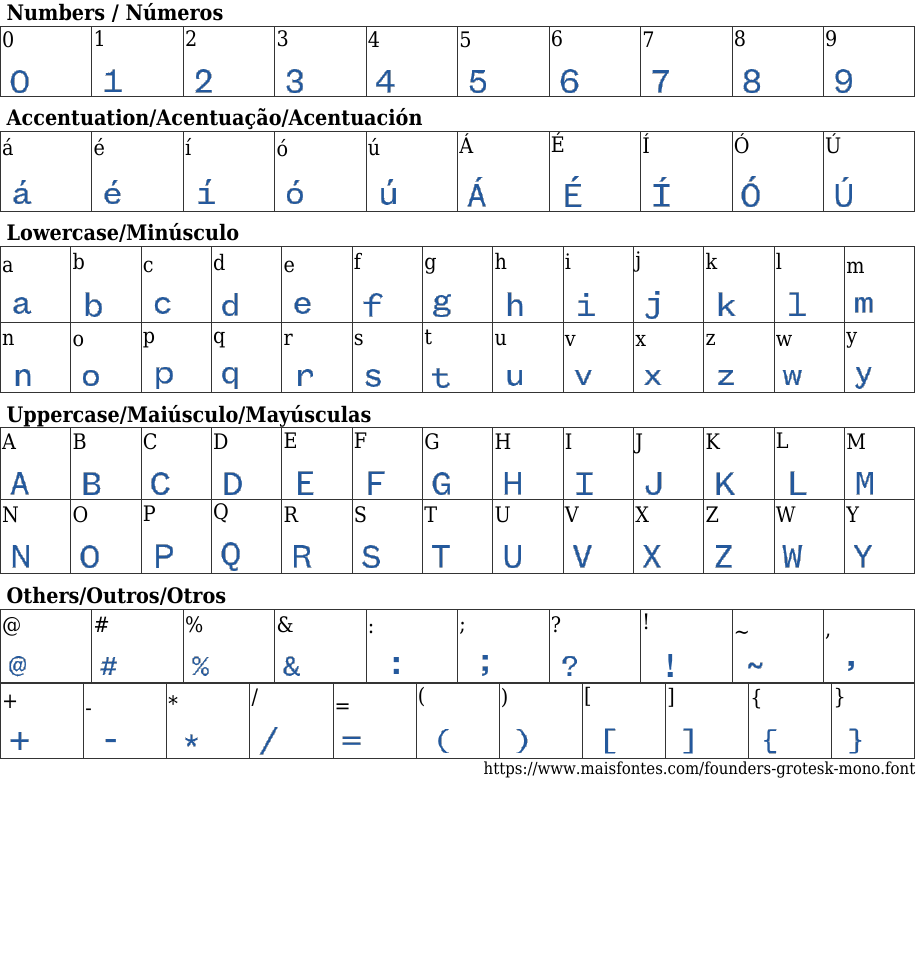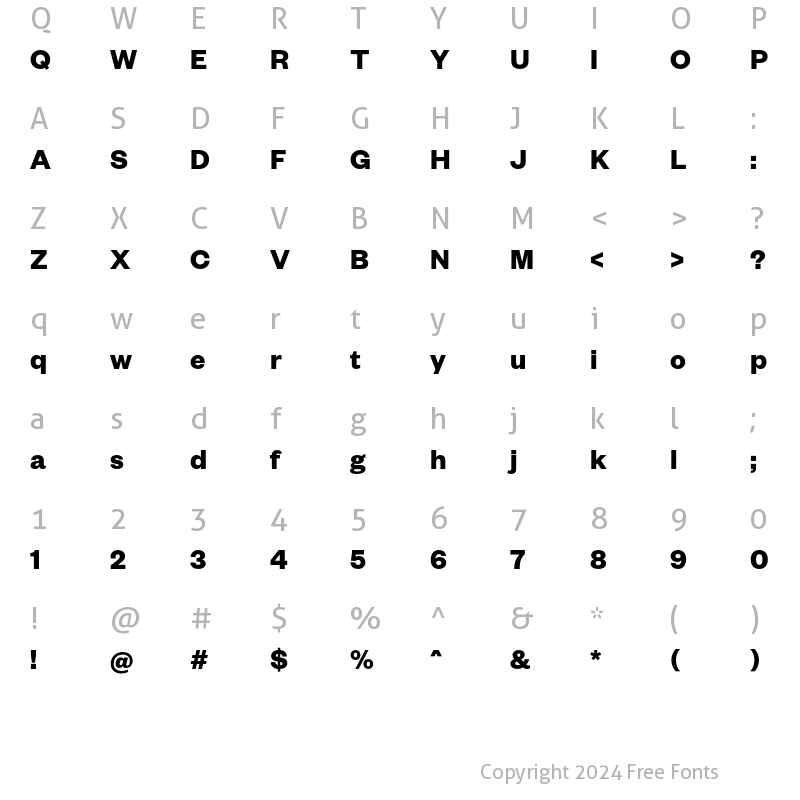
Founders Grotesk Google Font - Founders grotesk sans serif font. Websites using the typeface founders grotesk with personal recommendations for similar web fonts, suggested font pairings and the closest. Designed by kris sowersby of the klim type. Sans serif, basic, display languages supported:
Sans serif, basic, display languages supported: Websites using the typeface founders grotesk with personal recommendations for similar web fonts, suggested font pairings and the closest. Designed by kris sowersby of the klim type. Founders grotesk sans serif font.
Websites using the typeface founders grotesk with personal recommendations for similar web fonts, suggested font pairings and the closest. Sans serif, basic, display languages supported: Founders grotesk sans serif font. Designed by kris sowersby of the klim type.
Websites using the typeface founders grotesk with personal recommendations for similar web fonts, suggested font pairings and the closest. Designed by kris sowersby of the klim type. Founders grotesk sans serif font. Sans serif, basic, display languages supported:
Founders grotesk sans serif font. Sans serif, basic, display languages supported: Websites using the typeface founders grotesk with personal recommendations for similar web fonts, suggested font pairings and the closest. Designed by kris sowersby of the klim type.
Founders grotesk sans serif font. Designed by kris sowersby of the klim type. Websites using the typeface founders grotesk with personal recommendations for similar web fonts, suggested font pairings and the closest. Sans serif, basic, display languages supported:
Founders grotesk sans serif font. Sans serif, basic, display languages supported: Websites using the typeface founders grotesk with personal recommendations for similar web fonts, suggested font pairings and the closest. Designed by kris sowersby of the klim type.
Founders grotesk sans serif font. Sans serif, basic, display languages supported: Designed by kris sowersby of the klim type. Websites using the typeface founders grotesk with personal recommendations for similar web fonts, suggested font pairings and the closest.
Sans serif, basic, display languages supported: Founders grotesk sans serif font. Designed by kris sowersby of the klim type. Websites using the typeface founders grotesk with personal recommendations for similar web fonts, suggested font pairings and the closest.
Designed by kris sowersby of the klim type. Founders grotesk sans serif font. Websites using the typeface founders grotesk with personal recommendations for similar web fonts, suggested font pairings and the closest. Sans serif, basic, display languages supported:
Founders grotesk sans serif font. Sans serif, basic, display languages supported: Designed by kris sowersby of the klim type. Websites using the typeface founders grotesk with personal recommendations for similar web fonts, suggested font pairings and the closest.
Sans serif, basic, display languages supported: Websites using the typeface founders grotesk with personal recommendations for similar web fonts, suggested font pairings and the closest. Designed by kris sowersby of the klim type. Founders grotesk sans serif font.
Sans serif, basic, display languages supported: Founders grotesk sans serif font. Websites using the typeface founders grotesk with personal recommendations for similar web fonts, suggested font pairings and the closest. Designed by kris sowersby of the klim type.
Founders Grotesk Sans Serif Font.
Websites using the typeface founders grotesk with personal recommendations for similar web fonts, suggested font pairings and the closest. Designed by kris sowersby of the klim type. Sans serif, basic, display languages supported: